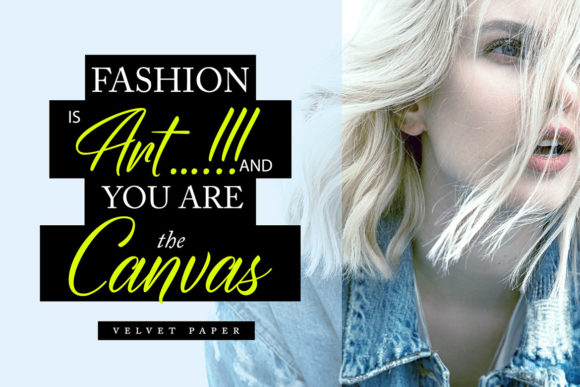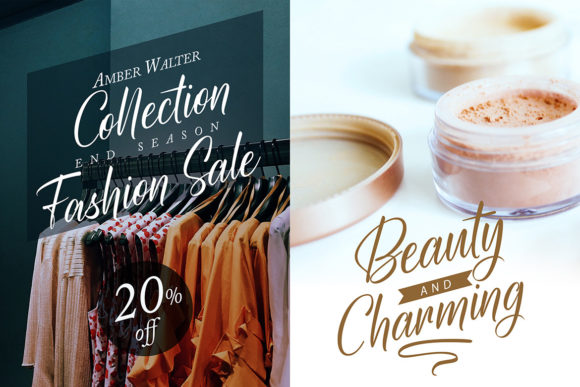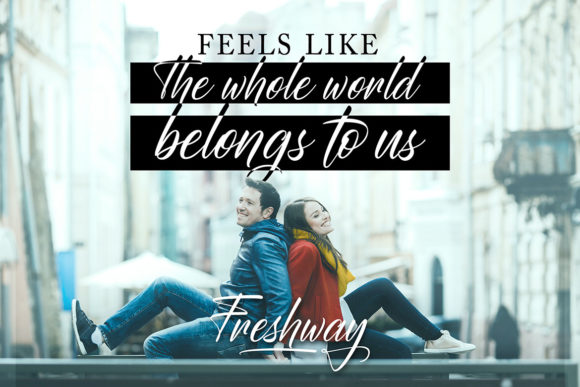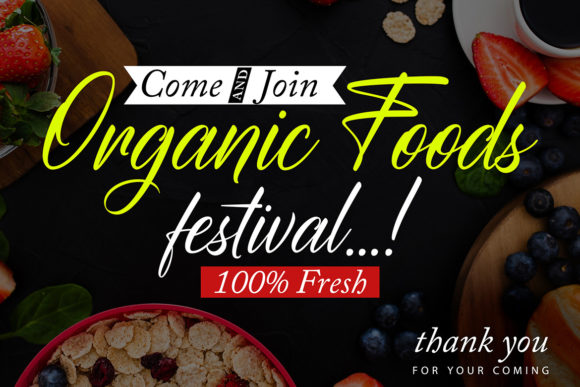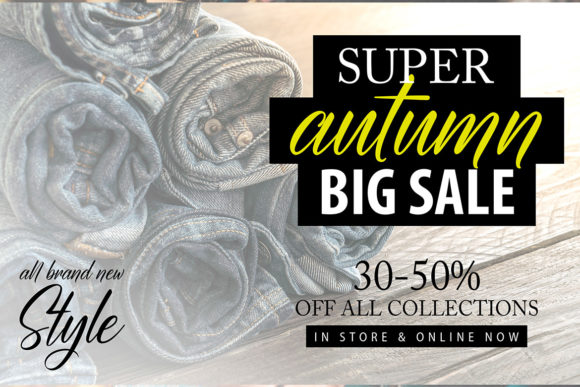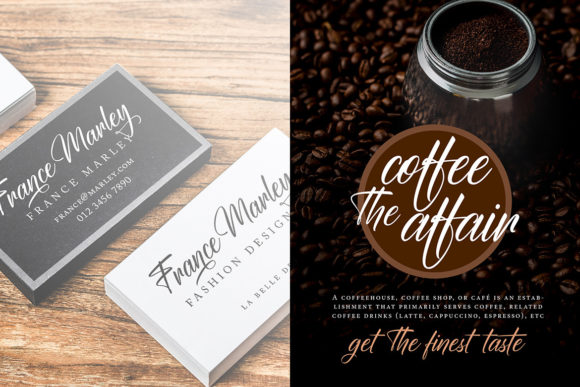
Introduction to Freshway Font
Freshway is a beautiful handwritten font.
It looks lovely on wedding invitations, thank you cards, quotes, greeting cards, logos, business cards and every other design which needs a customized touch Freshway is PUA encoded which means you can access all of the glyphs and swashes with ease.
Key Features of Freshway Font
Why Choose Freshway Font?
Freshway Font offers exceptional quality and versatility, making it a valuable addition to your design toolkit. Whether you’re creating for personal projects or commercial use, Freshway Font delivers professional results.